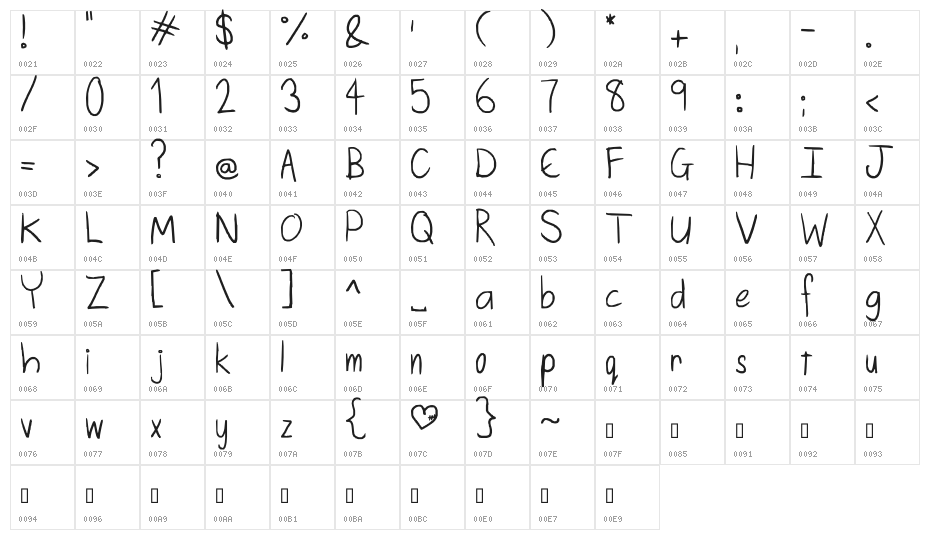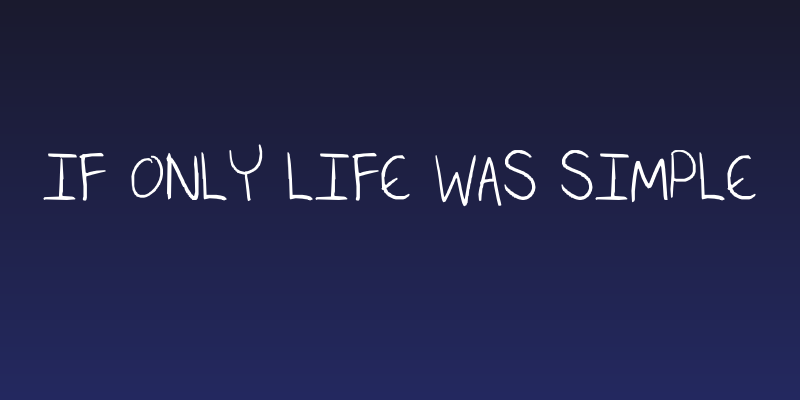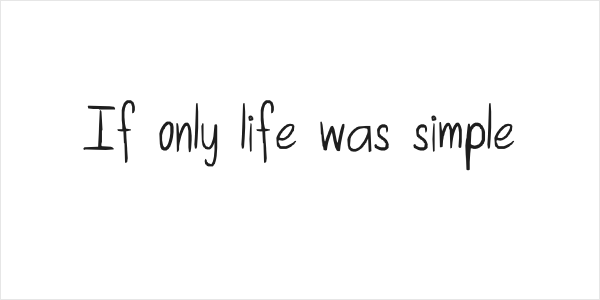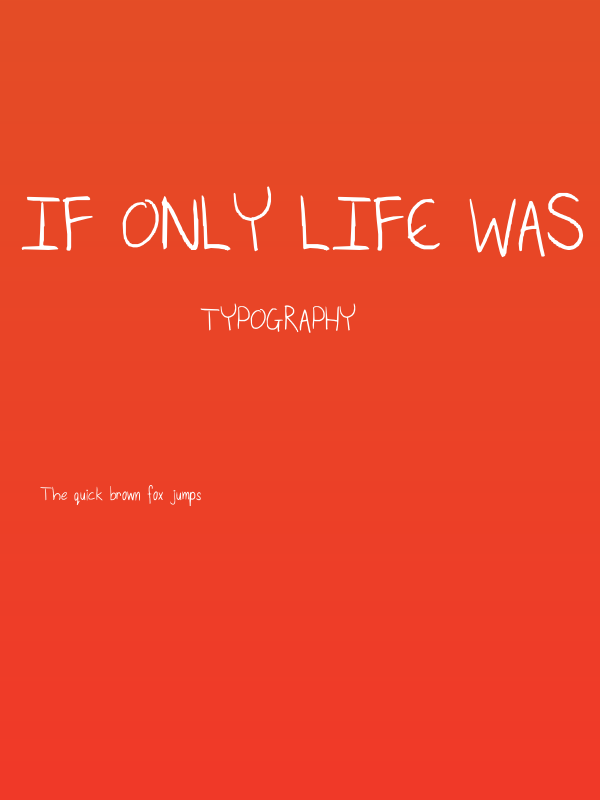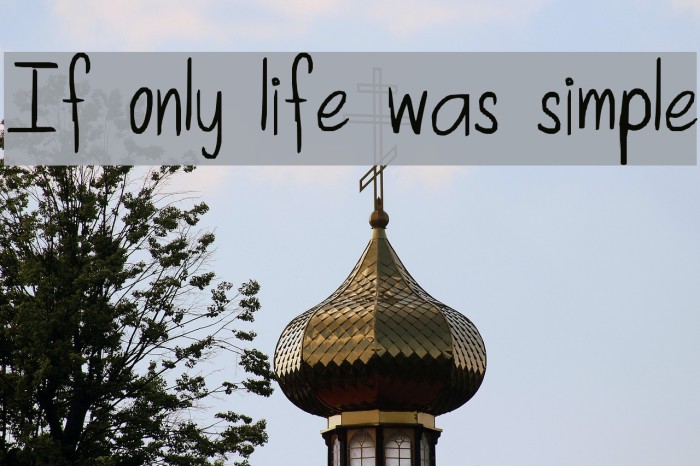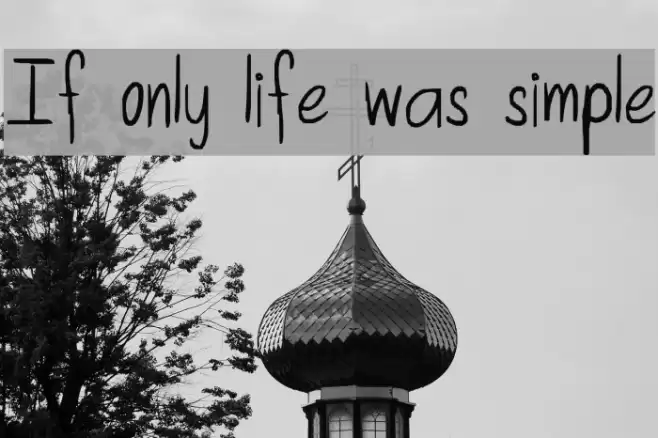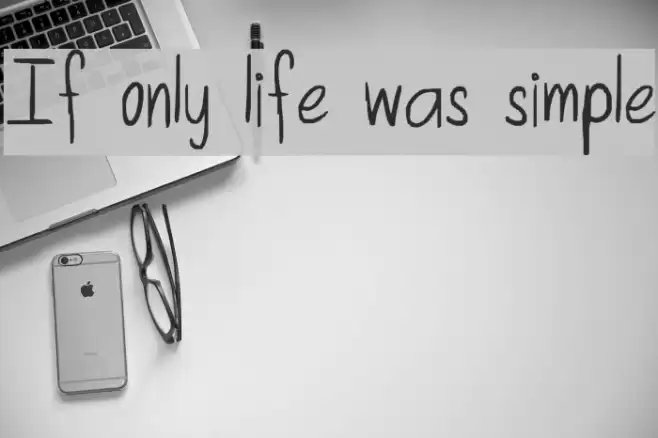
If only life was simple Font
If only life was simple Description
This font features a playful and informal handwritten style, characterized by its uneven strokes and casual appearance. The letters are slightly irregular, giving it a personal and approachable feel. The uppercase and lowercase letters maintain a consistent style, with rounded edges and varying stroke widths that add to its charm. The numerals and special characters follow the same whimsical design, making it suitable for creative and informal projects. The overall look is reminiscent of a hand-drawn note, perfect for conveying a sense of warmth and friendliness.
| Overall Style | Casual |
| Use Case | Headlines, Informal text, Creative projects |
| Proposed Projects | Ideal for greeting cards, children's books, personal blogs, and informal branding. |